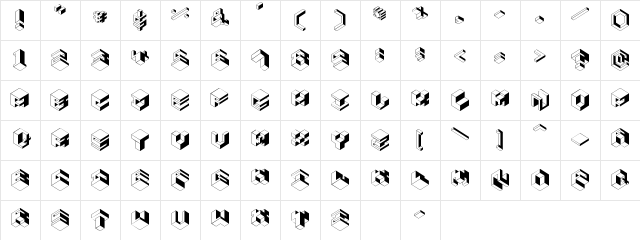
koobz Regular
| Designer | Kirk Shelton |
Design Context for koobz Typeface
koobz is a composed and adaptable typeface that performs quietly and consistently across a wide range of design contexts.